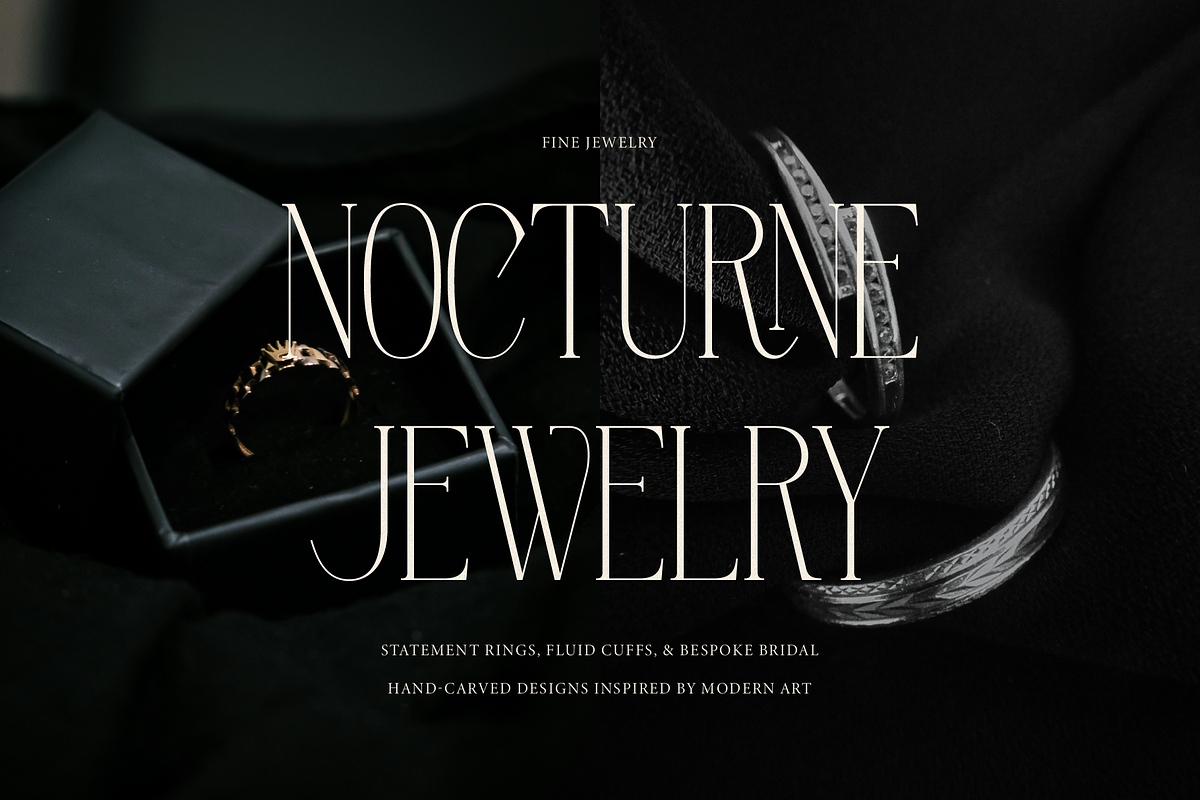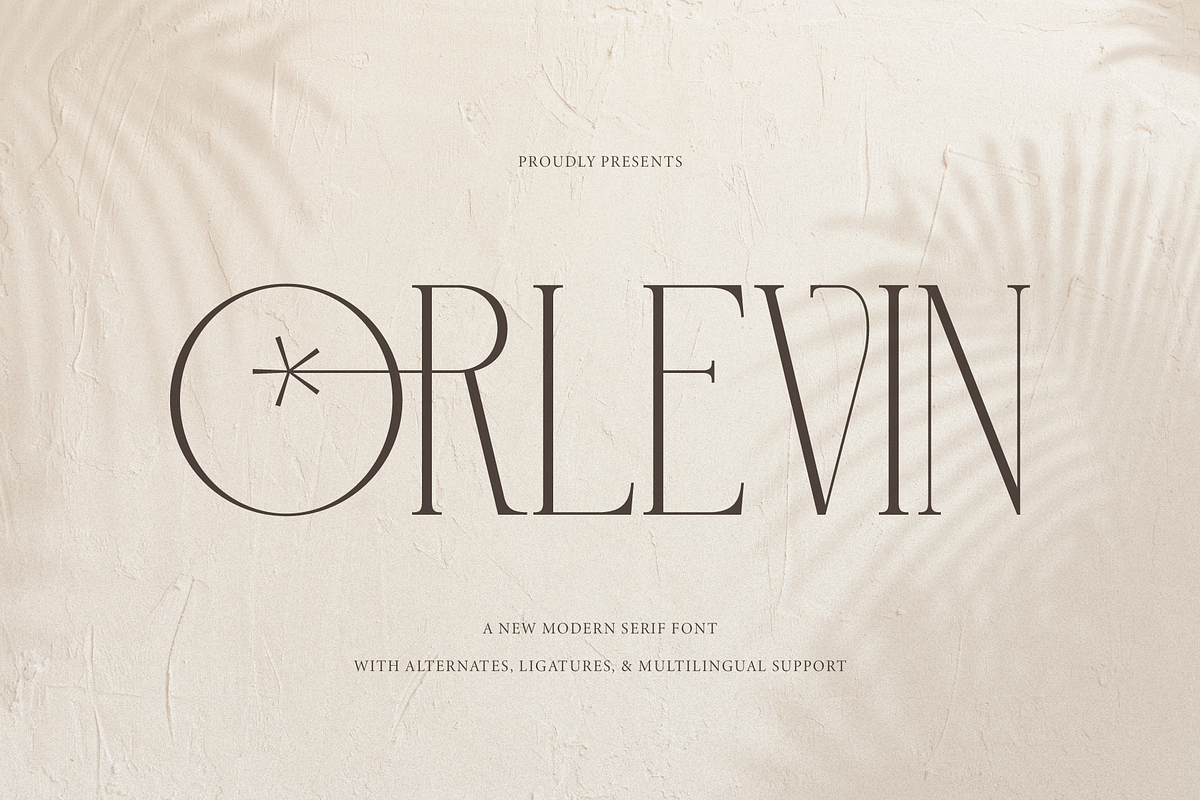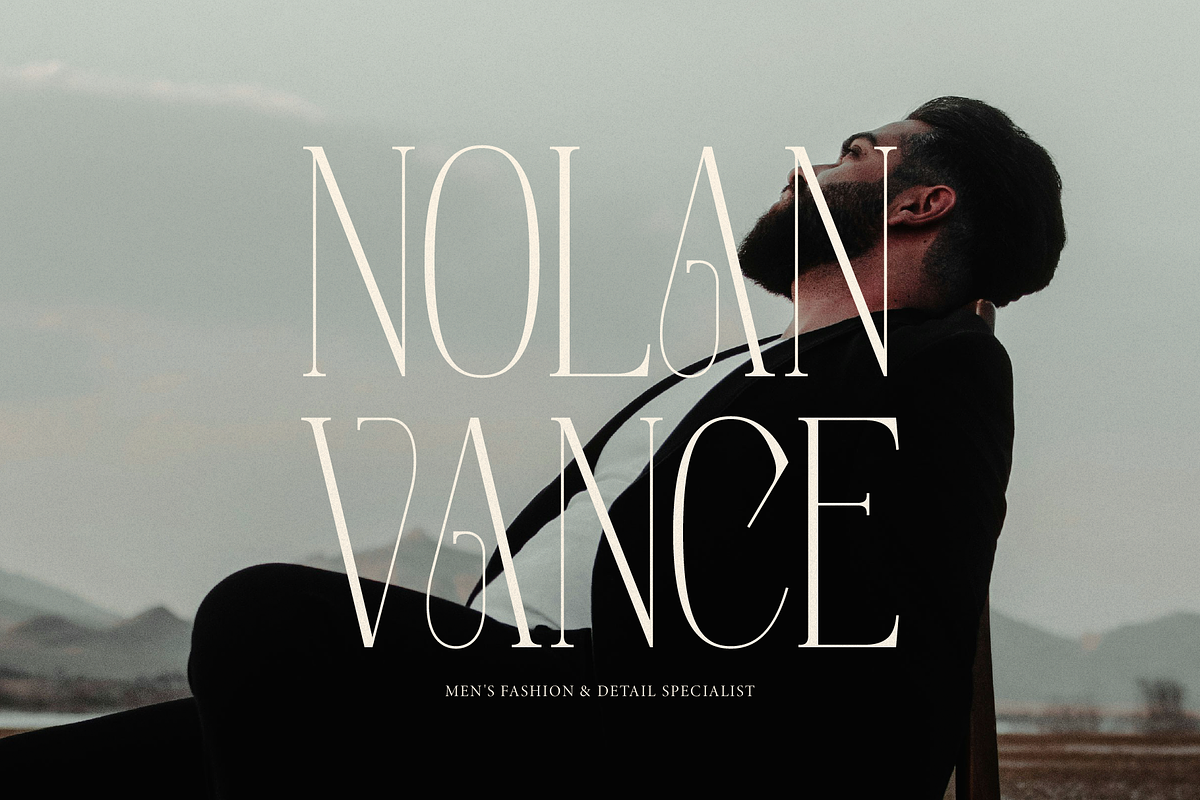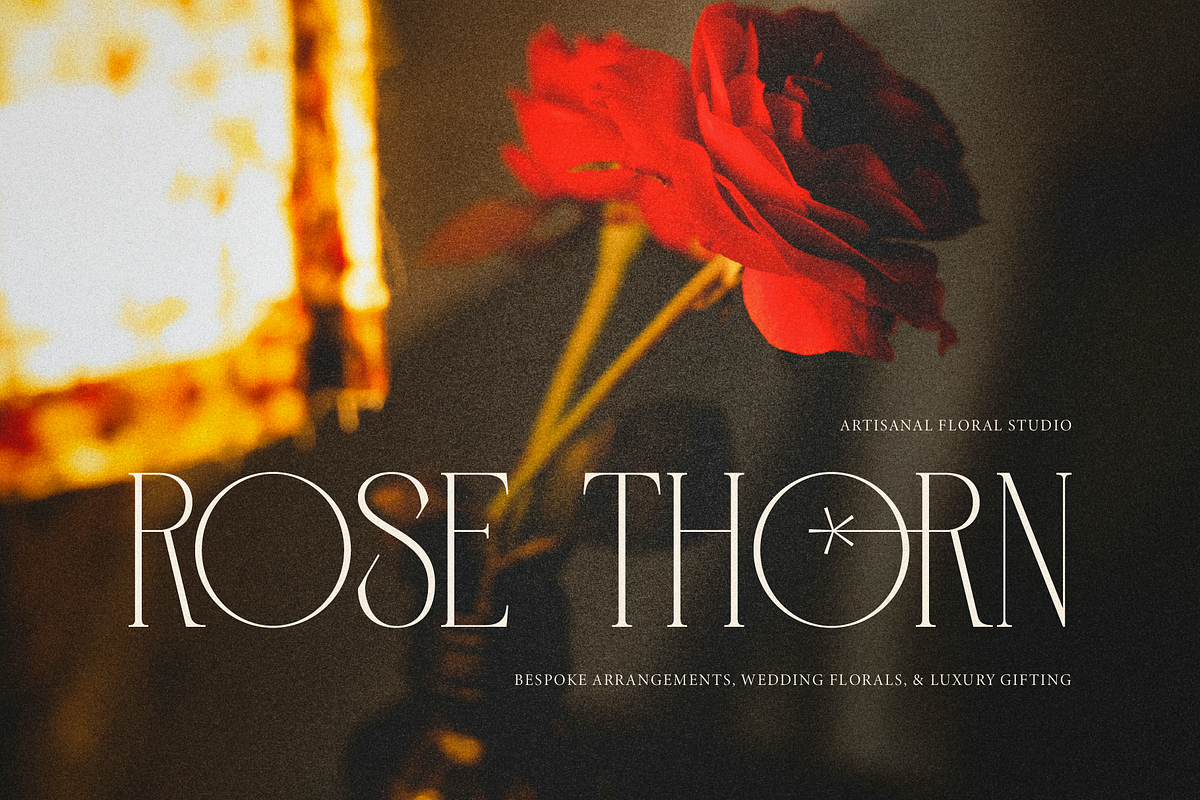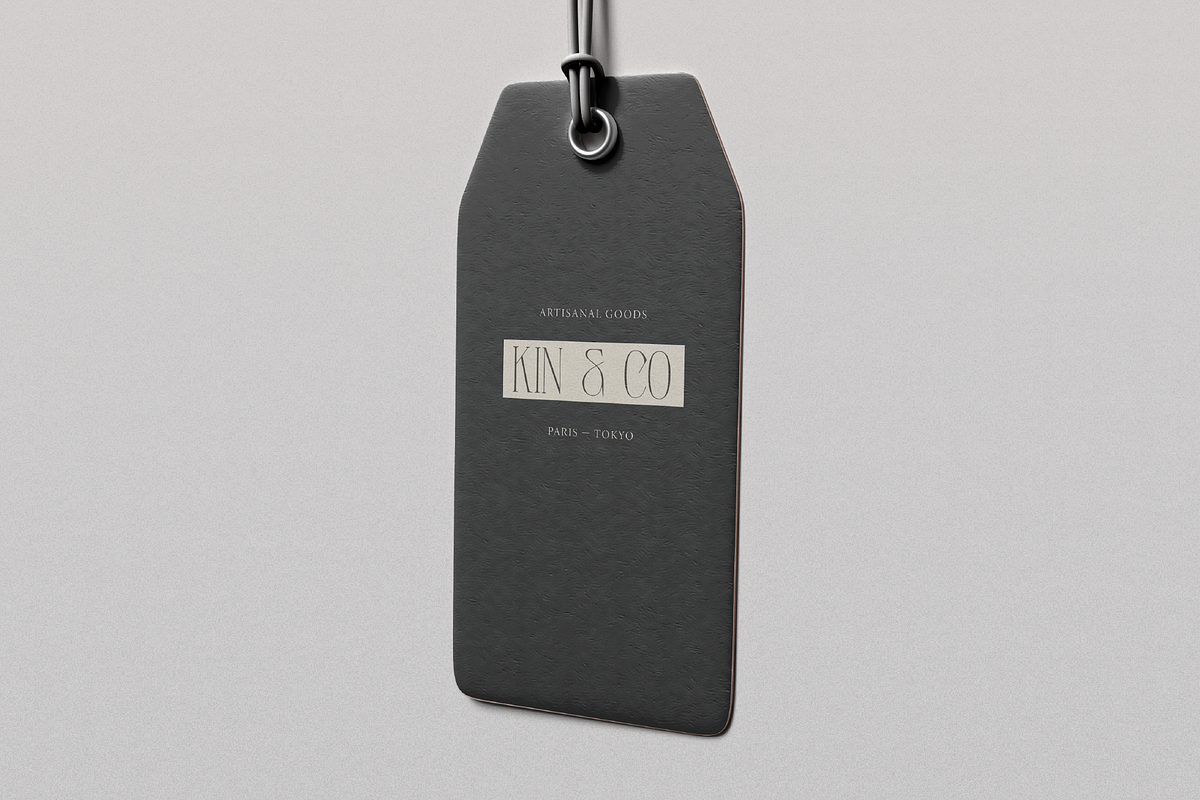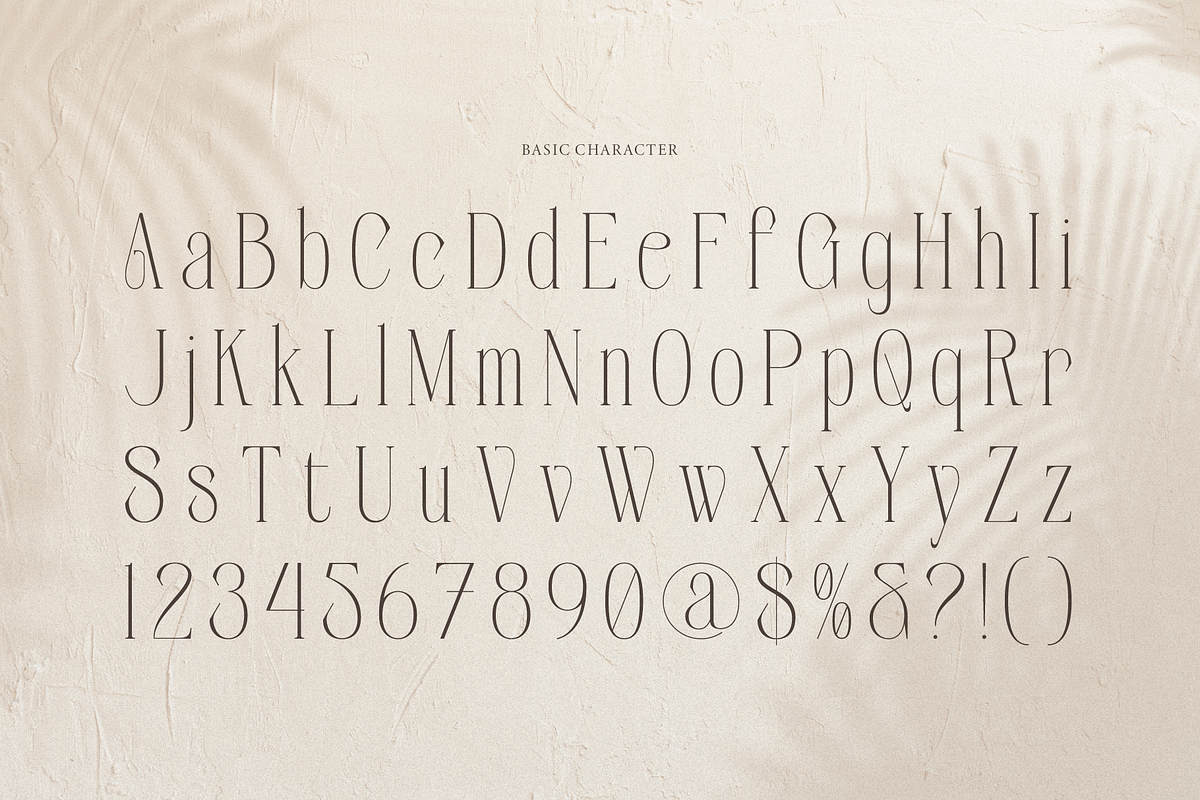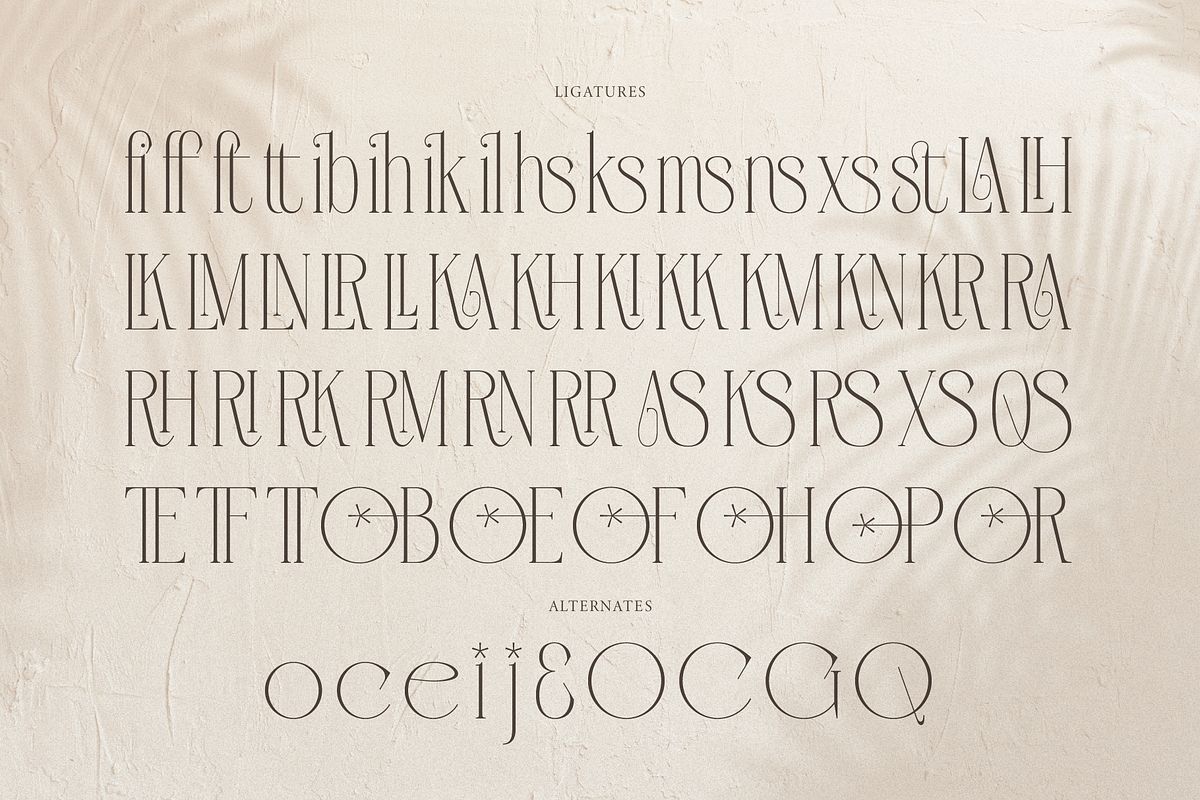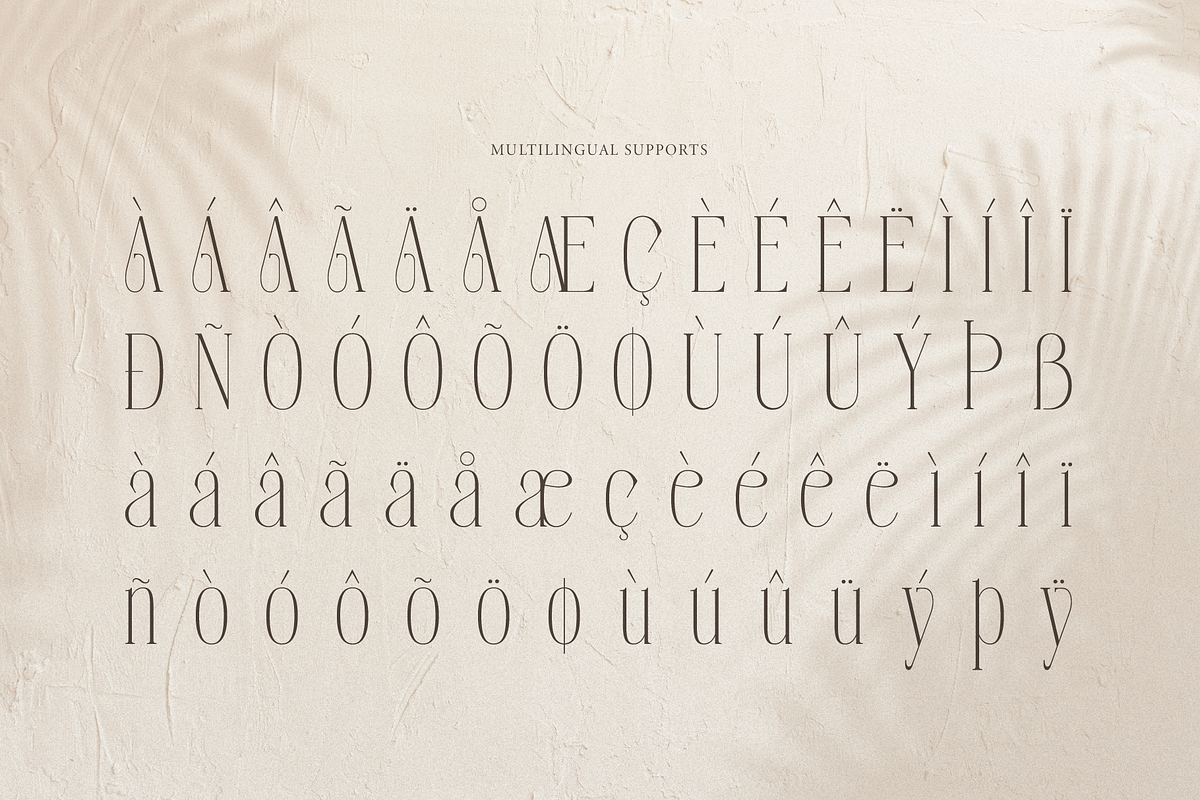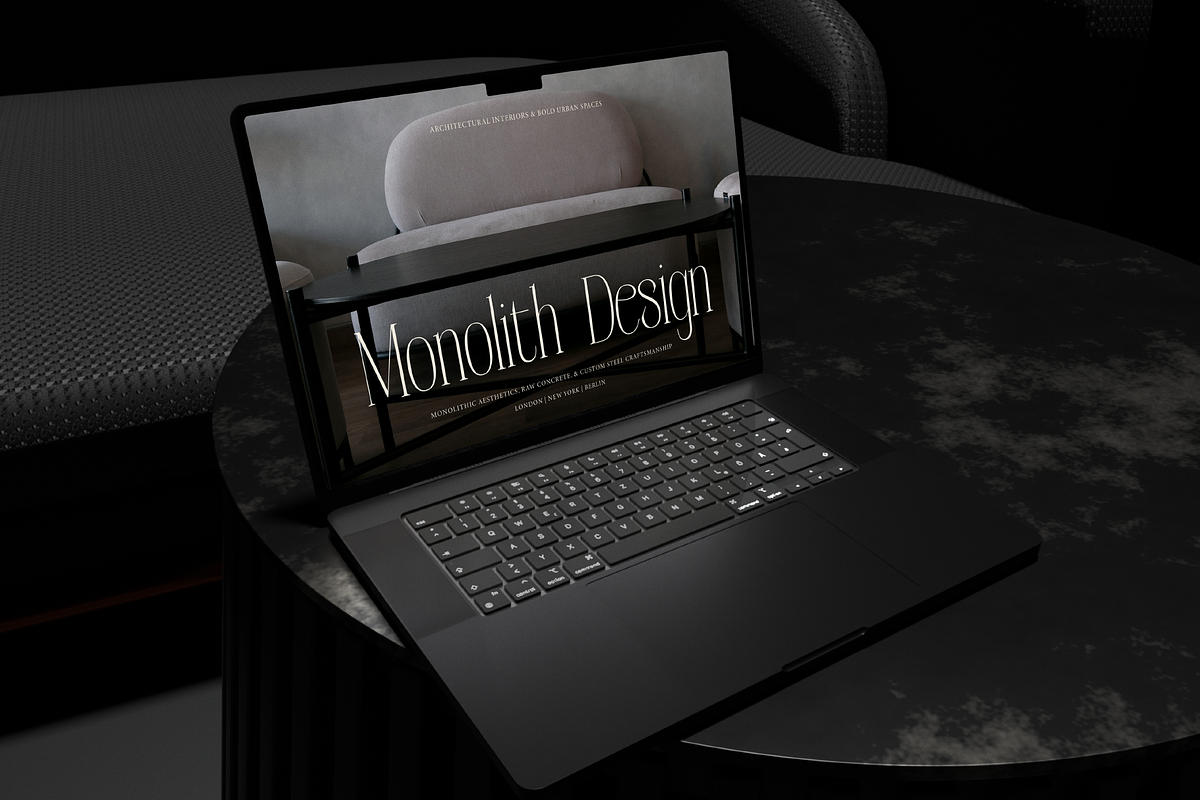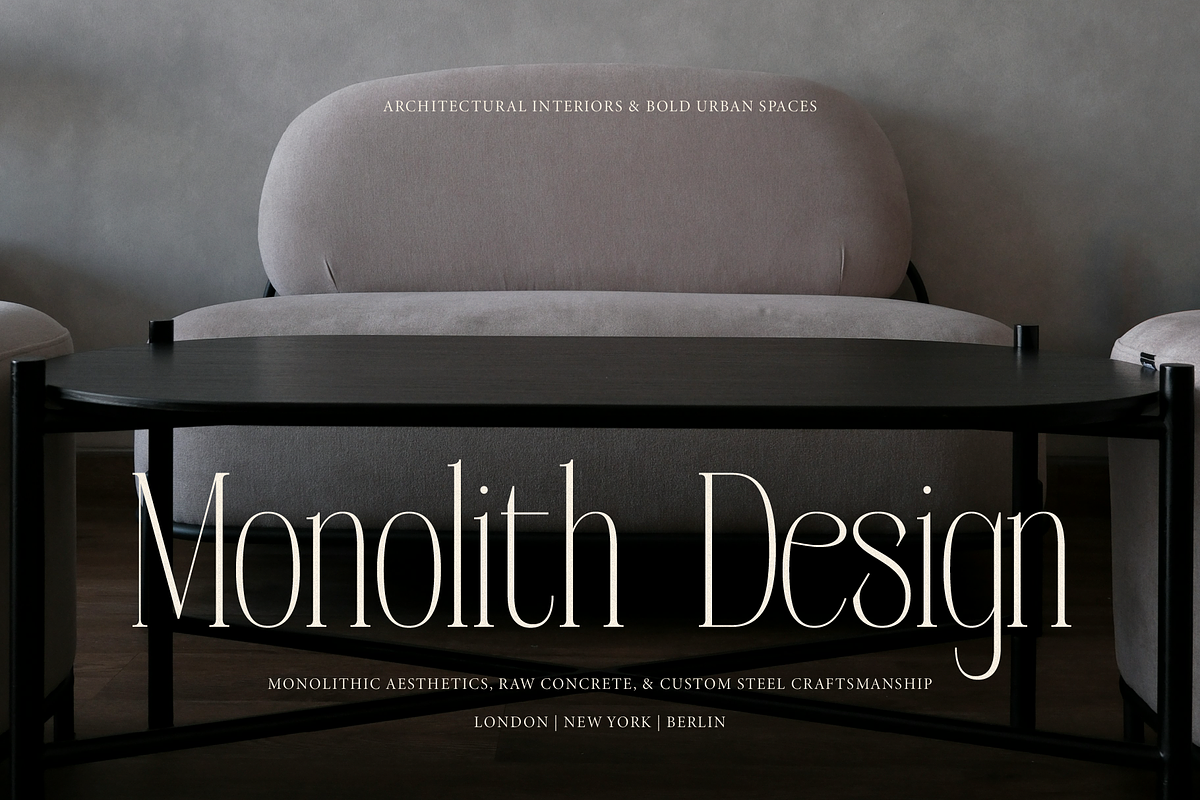
Orlevin | New Modern Serif
Orlevin | New Modern Serif, from Gracetypestudio, suitable for any projects such as: logos, branding projects, homeware designs, product packaging, mugs, quotes, posters, shopping bags, t-shirts, book covers, name card, invitation cards, greeting cards, label, photography, watermark, special events, and all your other lovely projects that need a Serif Font taste.
Alternate and Ligature